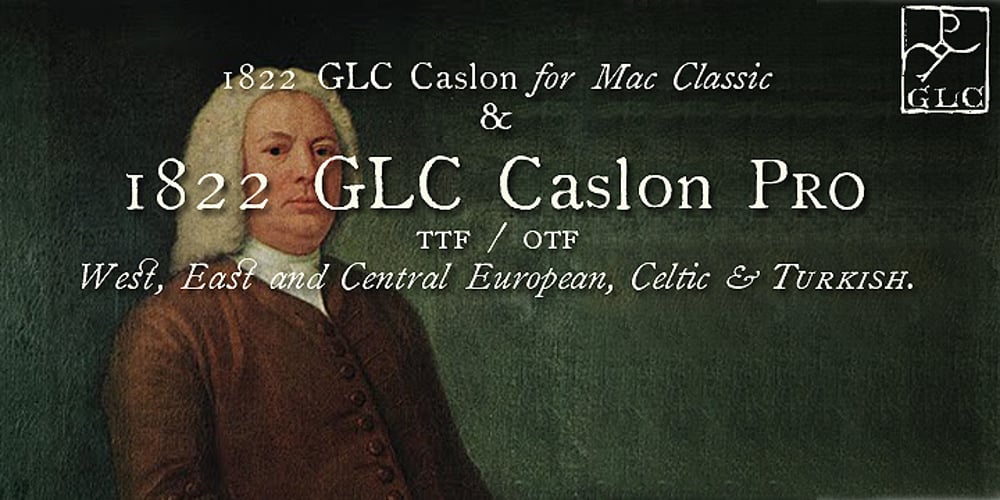
1822 GLC Caslon Pro Font Family was designed by published by GLC. 1822 GLC Caslon Pro contains 2 styles and family package options. This family was inspired by the well-known Caslon typeface created by William Caslon, the English font designer, who was, with John Baskerville, the progenitor of English Transitional typeface classification in the mid-18th century (See also our 1776 Independence). We were inspired by a Caslon style set used by an unknown Flemish printer from Bruges, in the beginning of 1800s, a little before the revival of Caslon style in the 1840s. Our font covers all Western, Eastern and Central European languages (including Celtic diacritics) and the Turkish alphabet, with a complete small-caps set in each of the two styles. (Please note: The complete character set is available only in TTF and OTF “Pro” version.)